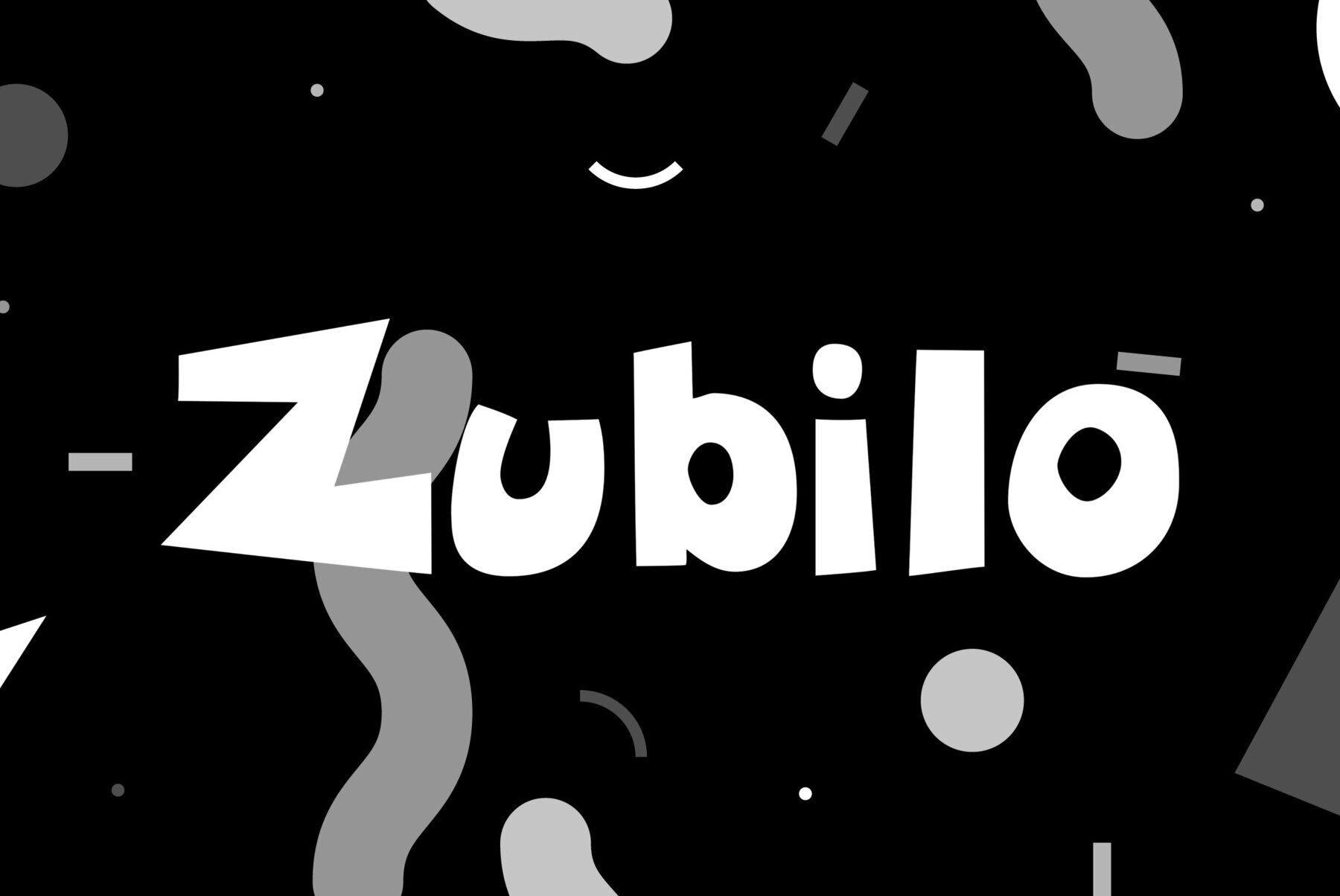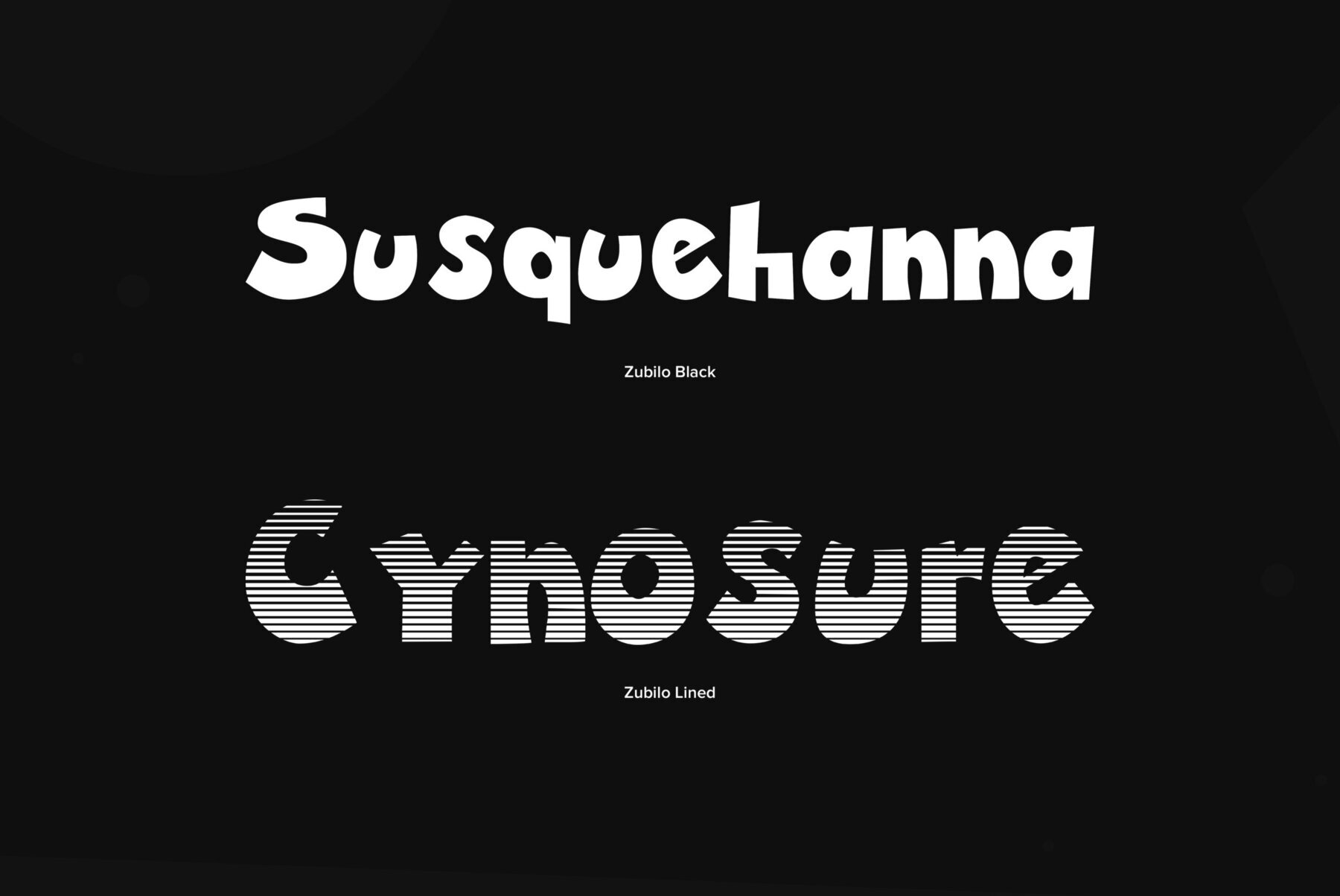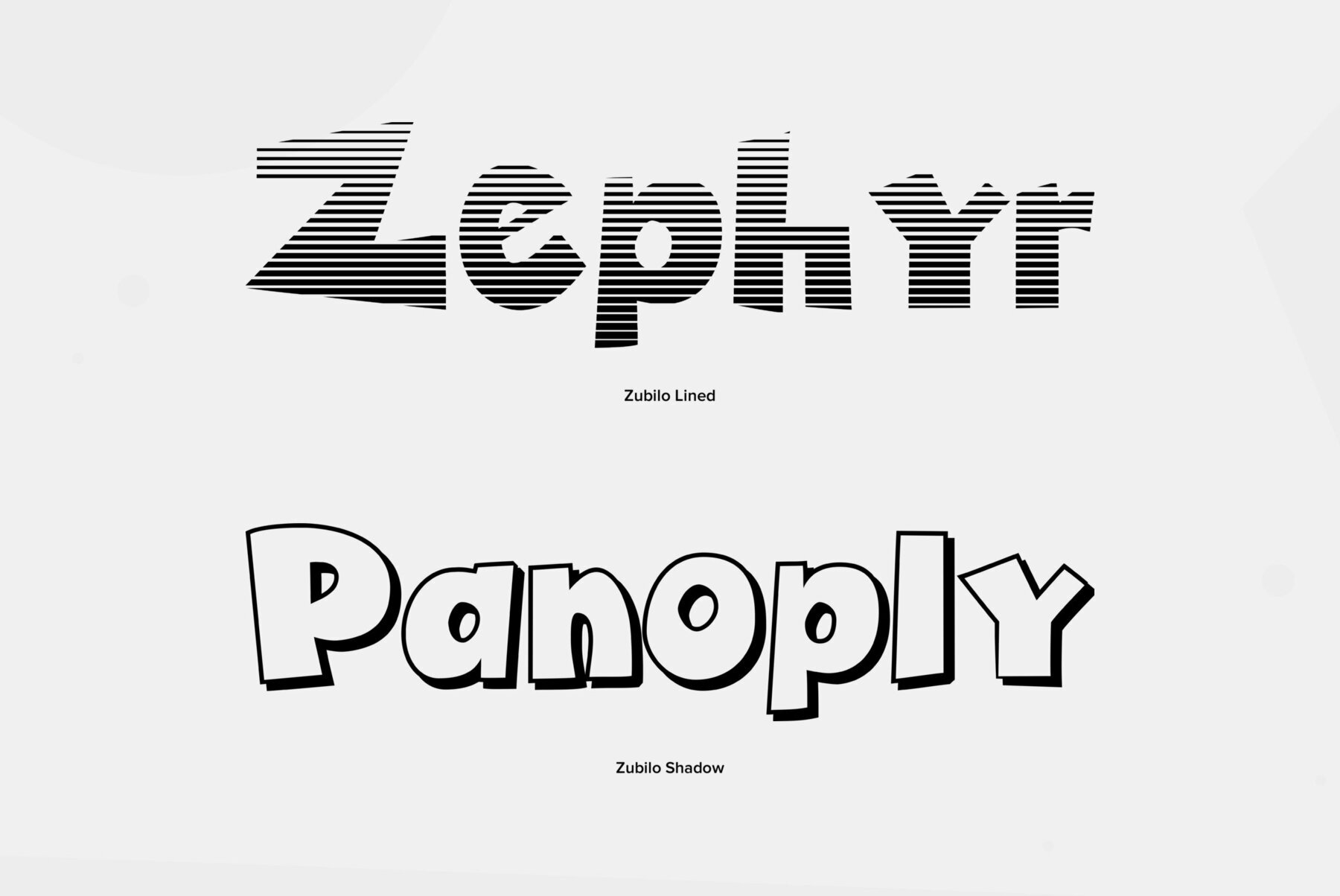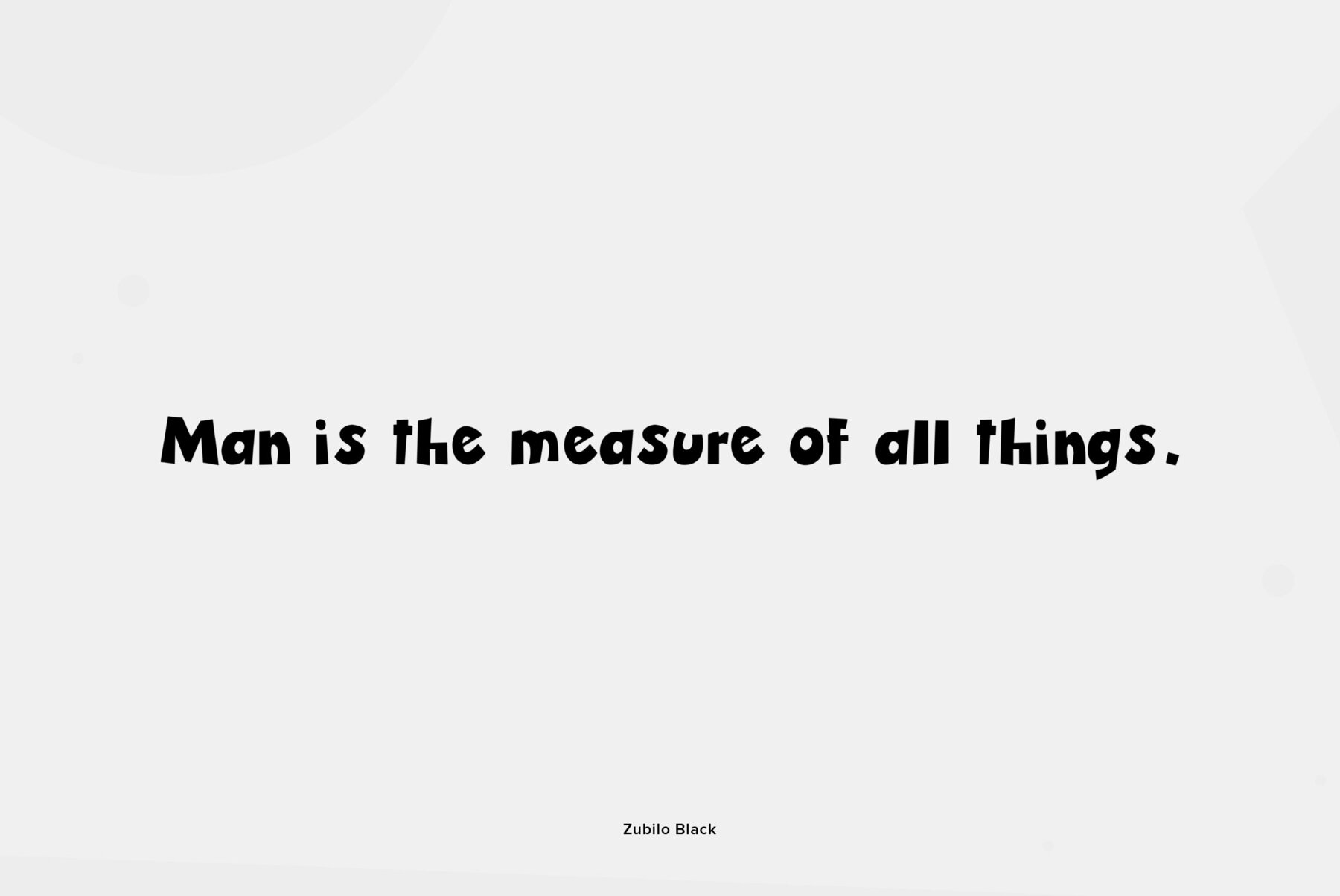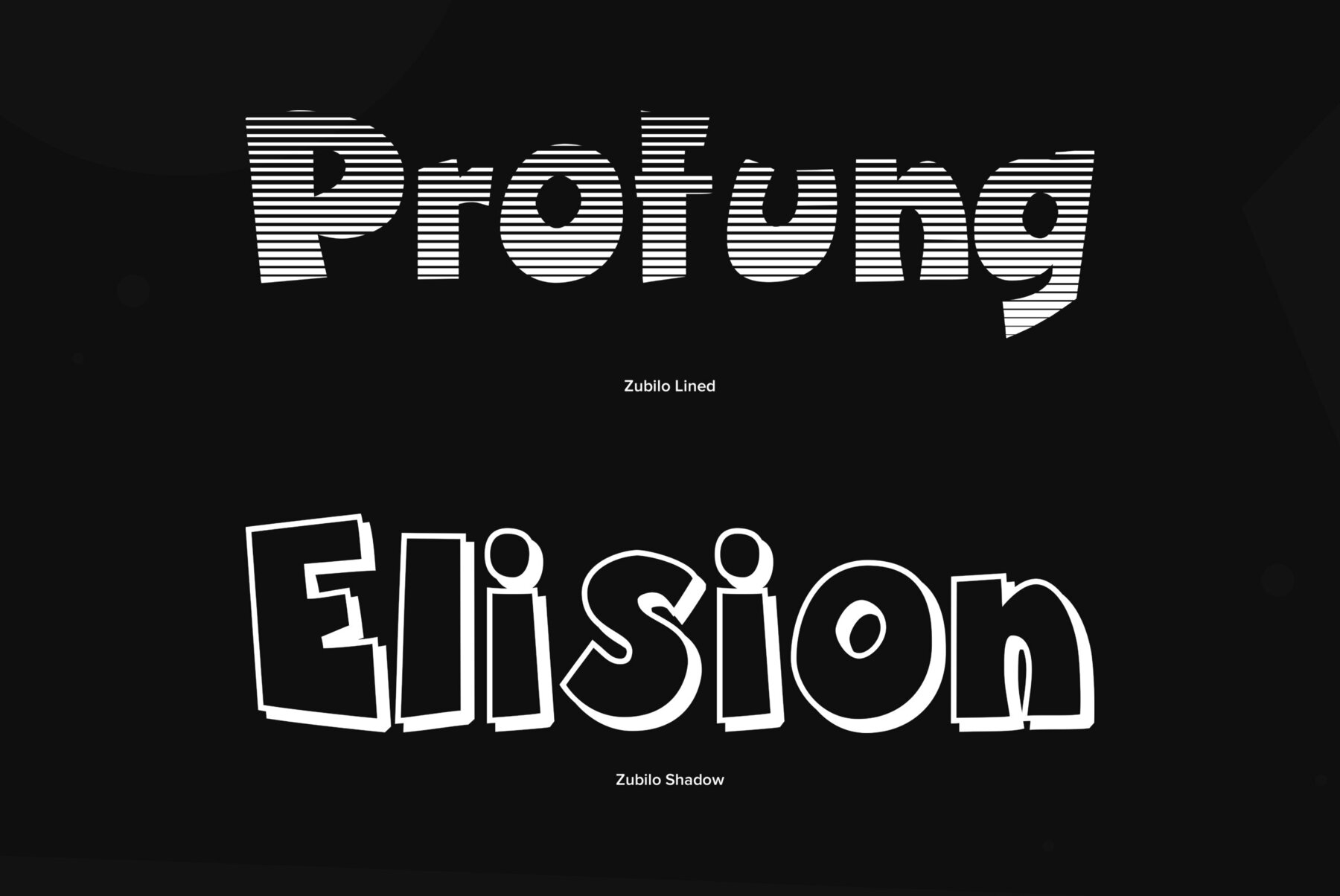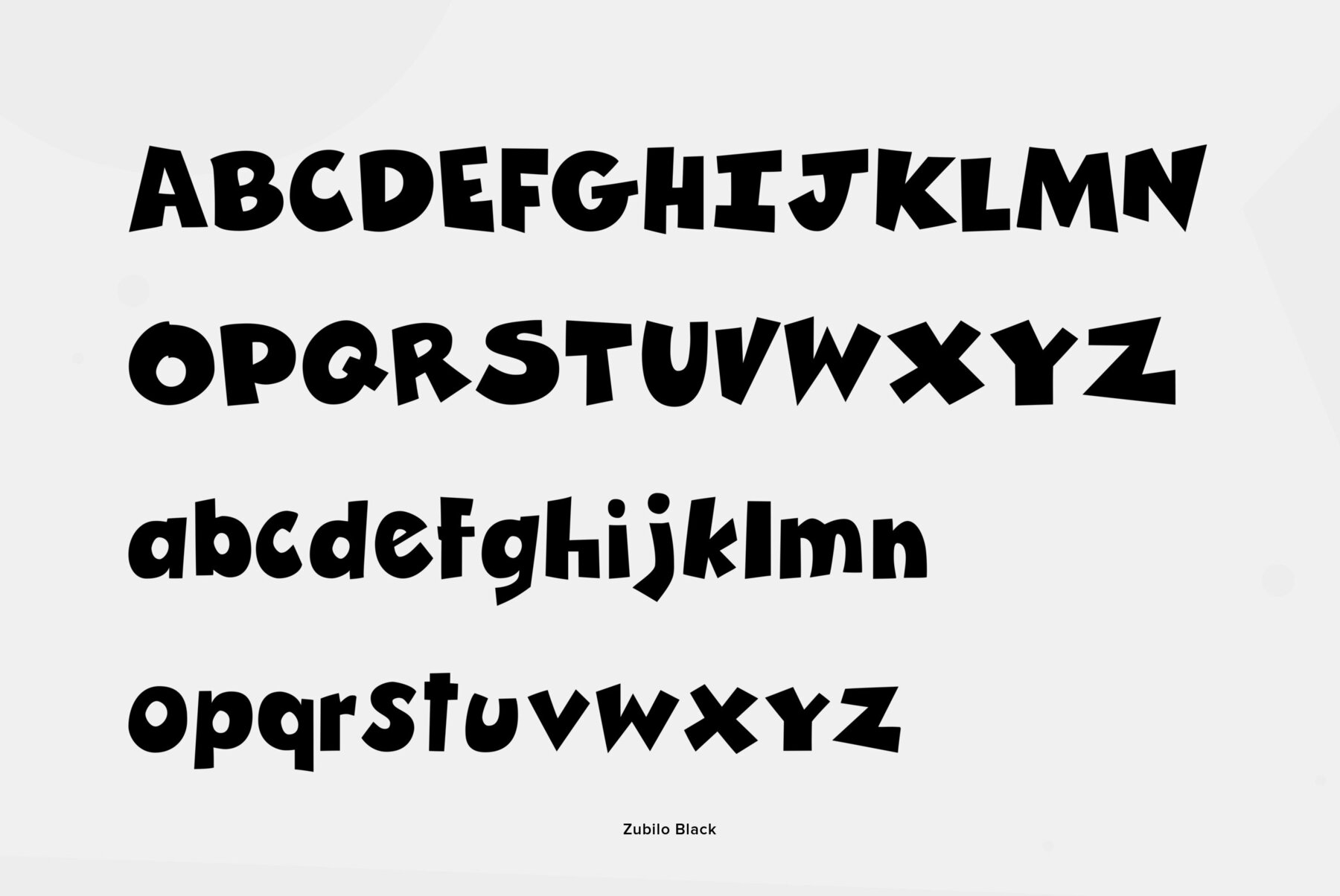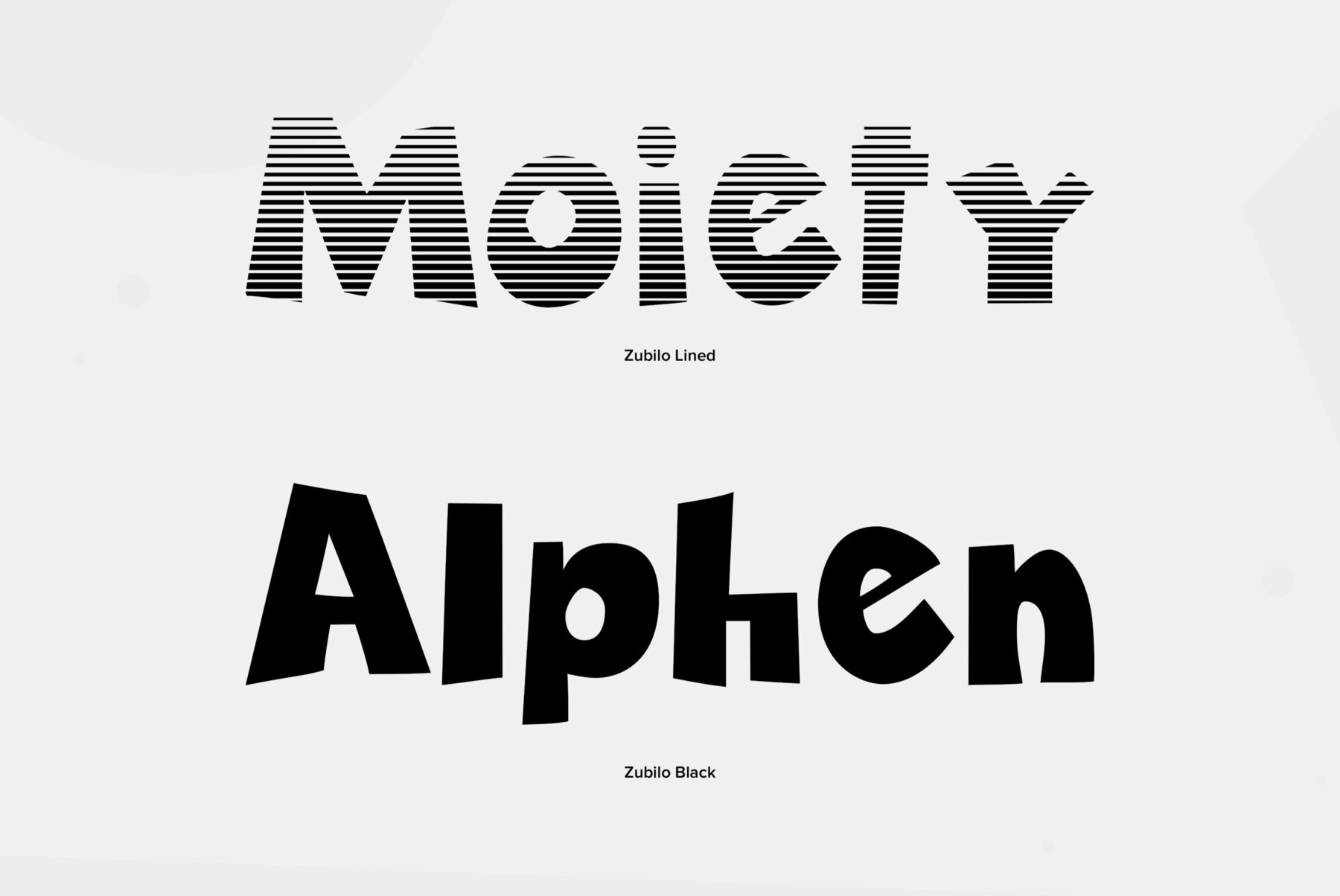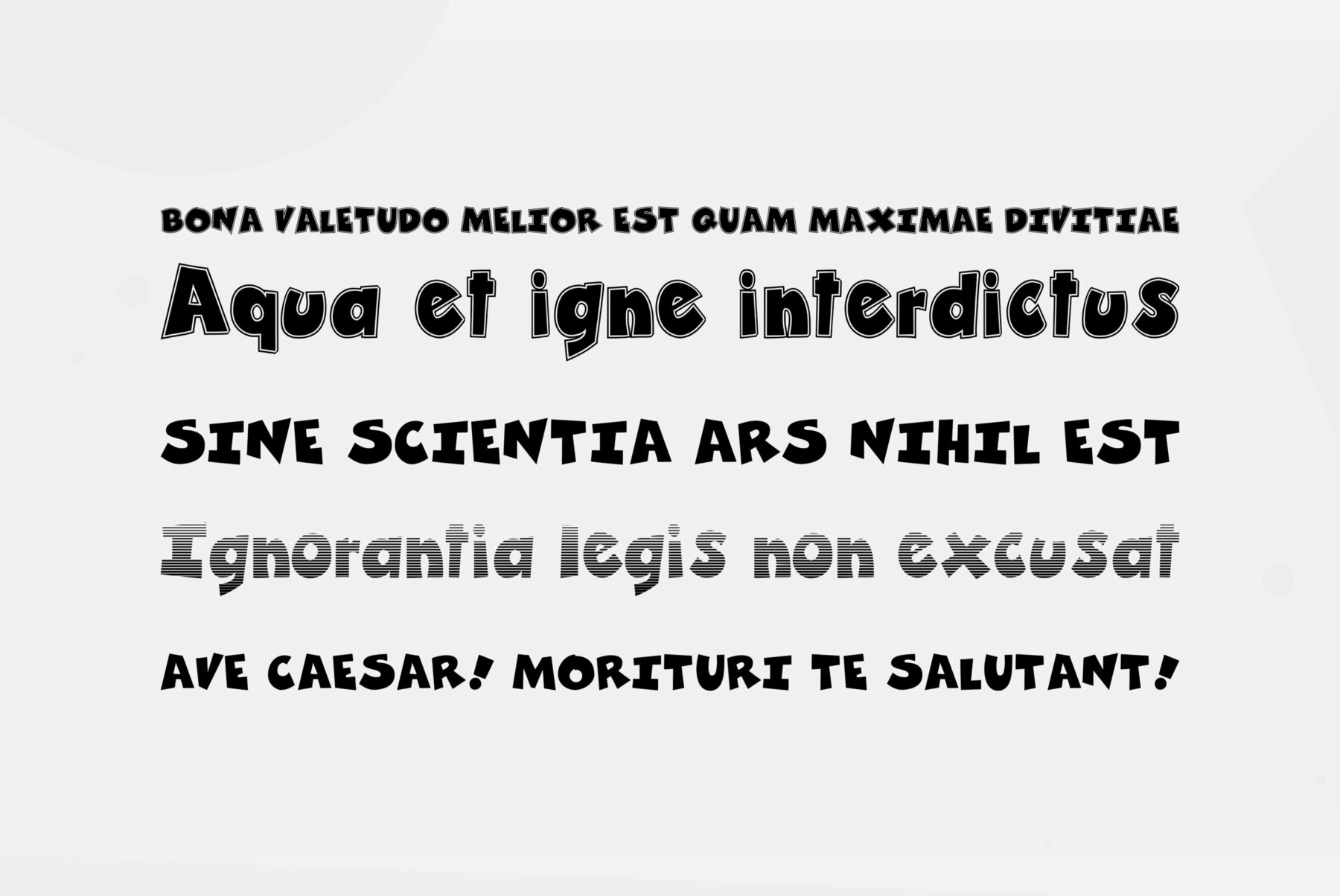
Zubilo Font
Zubilo Black
Zubilo Inline
Zubilo Lined
Zubilo Shadow
An informal decorative sans serif was designed by Gennady Fridman and released by ParaType in 2004. Based on informal lettering. In Russian 'Zubilo' means 'Cold cutter' or 'Chisel'. Colorful letterforms seems to be cut by an amateurish but strong hand used to operate with rough metal tools, not with pen or pencil. The face is good for use in advertisements, posters and headlines, especially for comic editions and youth press. Decorative styles were added in 2011 by the same author.